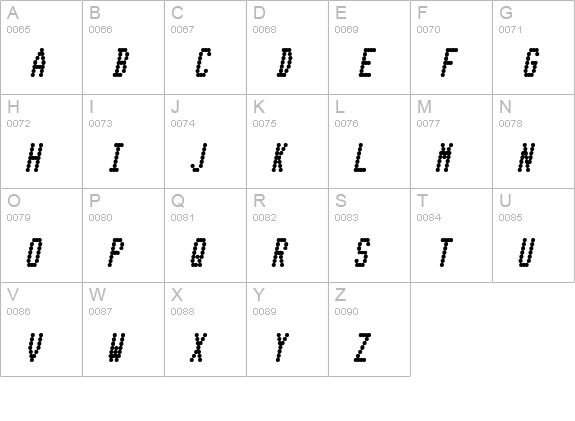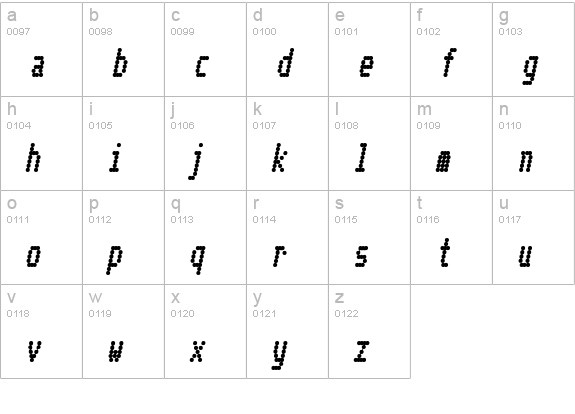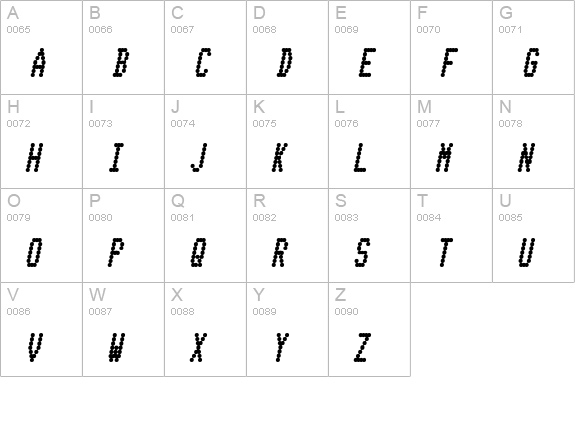
Telidon CdHv Italic Font Details
Telidon CdHv Italic is a distinctive, italic variant in the Telidon typeface family \xE2\x80\x94 well suited to design and typography projects.
Telidon CdHv Italic font is a modern and stylish typeface that adds a touch of elegance to any design project. Its sleek and sophisticated design makes it perfect for branding, advertising, and editorial purposes. The italic style of the font gives it a unique and dynamic look that will make your text stand out. What makes Telidon CdHv Italic font even more appealing is that it is available for free download at FontsMarket.com. This means you can easily access this high-quality font without any cost, making it a valuable addition to your font collection. Whether you are a designer, marketer, or content creator, Telidon CdHv Italic font is a versatile and eye-catching choice for all your creative endeavors.